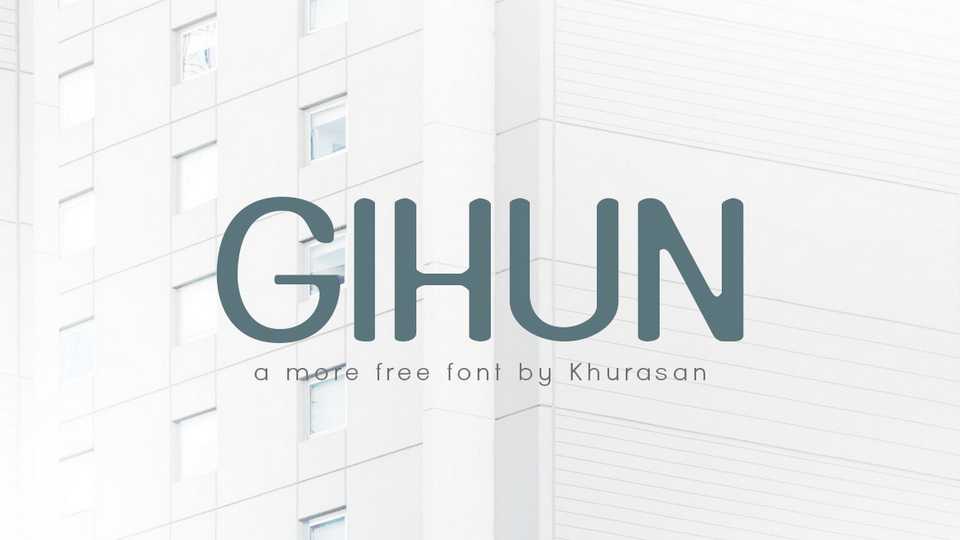
Download Gihun font, a clean and modern sans serif typeface with a hand crafted look. Gihun font can easily be matched to an incredibly large set of projects, so add it to your creative ideas and notice how it makes them stand out.